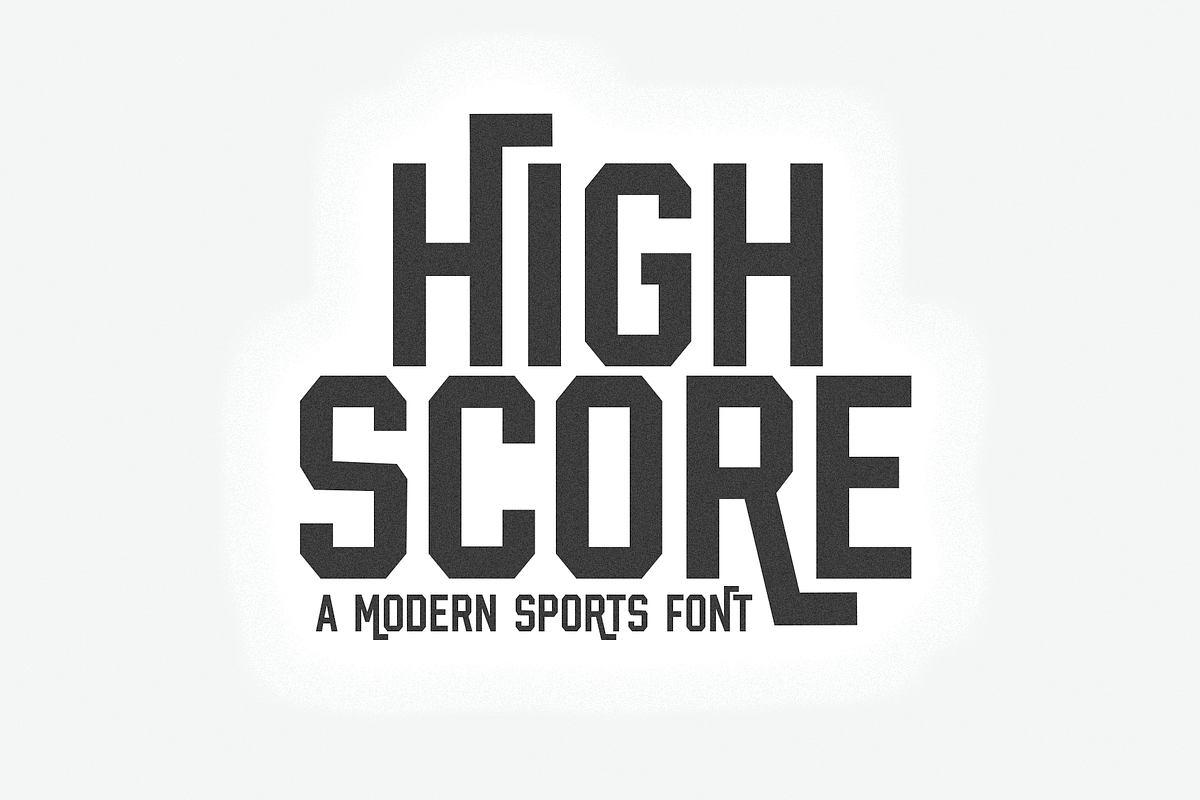
High Score | Sports Font Free Download is a bold and energetic typeface designed for athletic and competitive projects. With its sharp lines, strong presence, and dynamic structure, High Score is perfect for sports team logos, event posters, merchandise, gaming graphics, and sports branding.
High Score | Sports Font Free Download brings a sense of power and action to any design. Its robust, high-impact letterforms make it ideal for creating designs that demand attention, whether you're working on sports apparel, a championship event, or a game-related project.